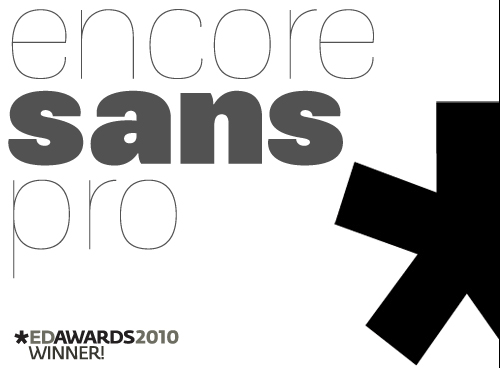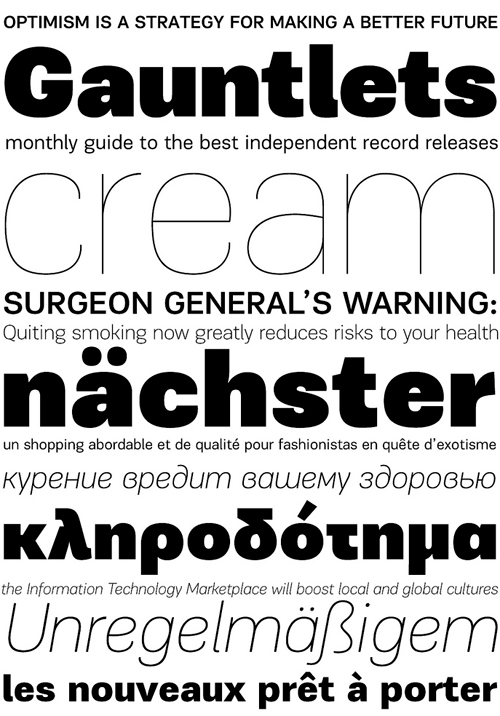
Encore Sans Pro – An Award Winning Typeface
a Silver Award for the superfamily Encore Sans Pro at the European Design Awards 2010, in Rotterdam.
As is written in ED Awards website “This is a simple and stylish humanistic sans serif which projects an image of reliability, authority and competence making it ideal for corporate applications. A functional typeface which combines utility with style. Its subtle round characteristics such as the slightly curved-in terminals, create a distinctly contemporary look, blending effectively traditional with modern details. Extreme weights, such as the elegant hairline, are carefully designed to establish an even color throughout, while ultra black despite its heavy characteristics is quite legible and powerful. This typeface is extremely versatile. It comes with 22 weights and supports simultaneously Latin, Greek and Cyrillic. Each font contains 1535 glyphs and is loaded with 22 advanced opentype features.”